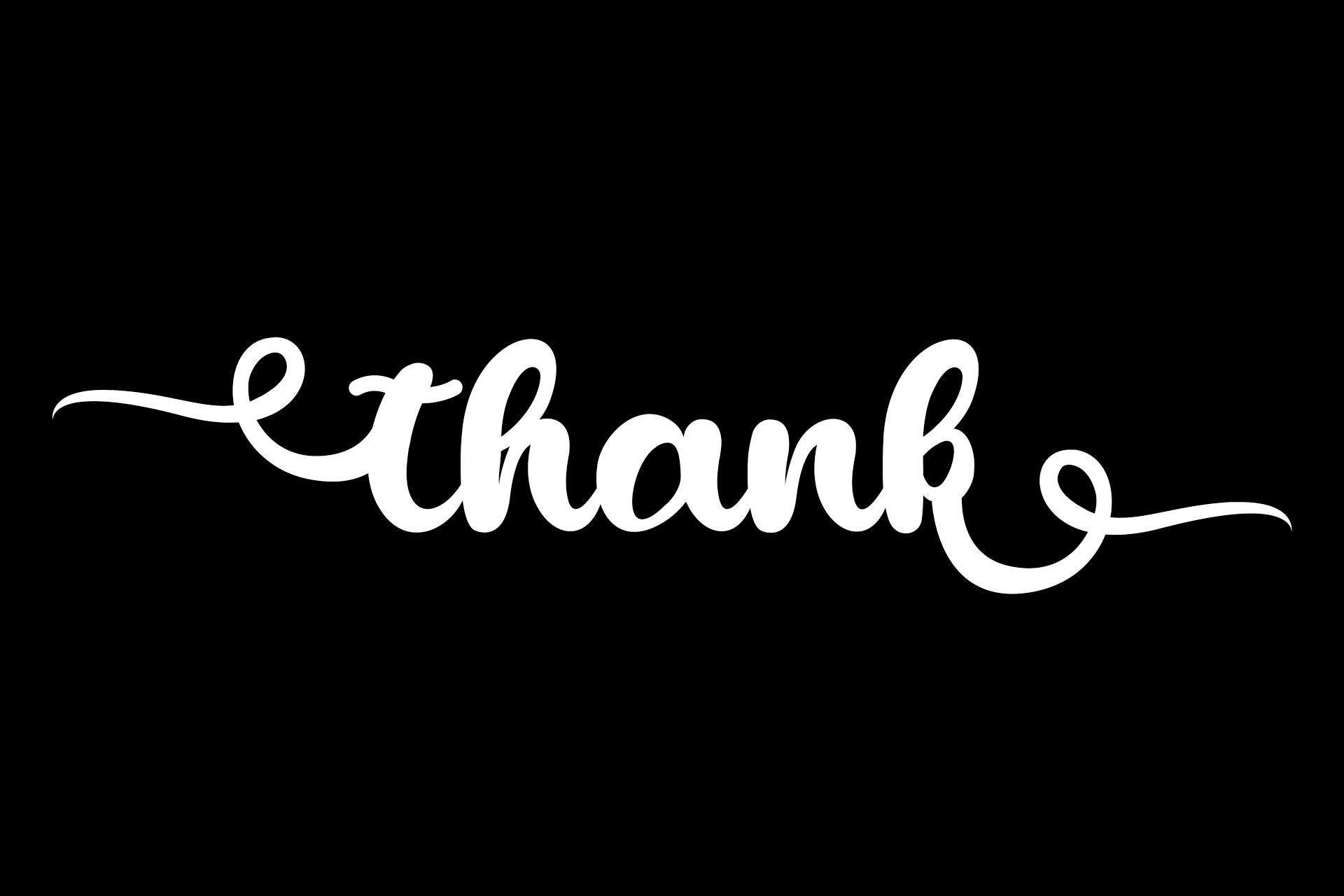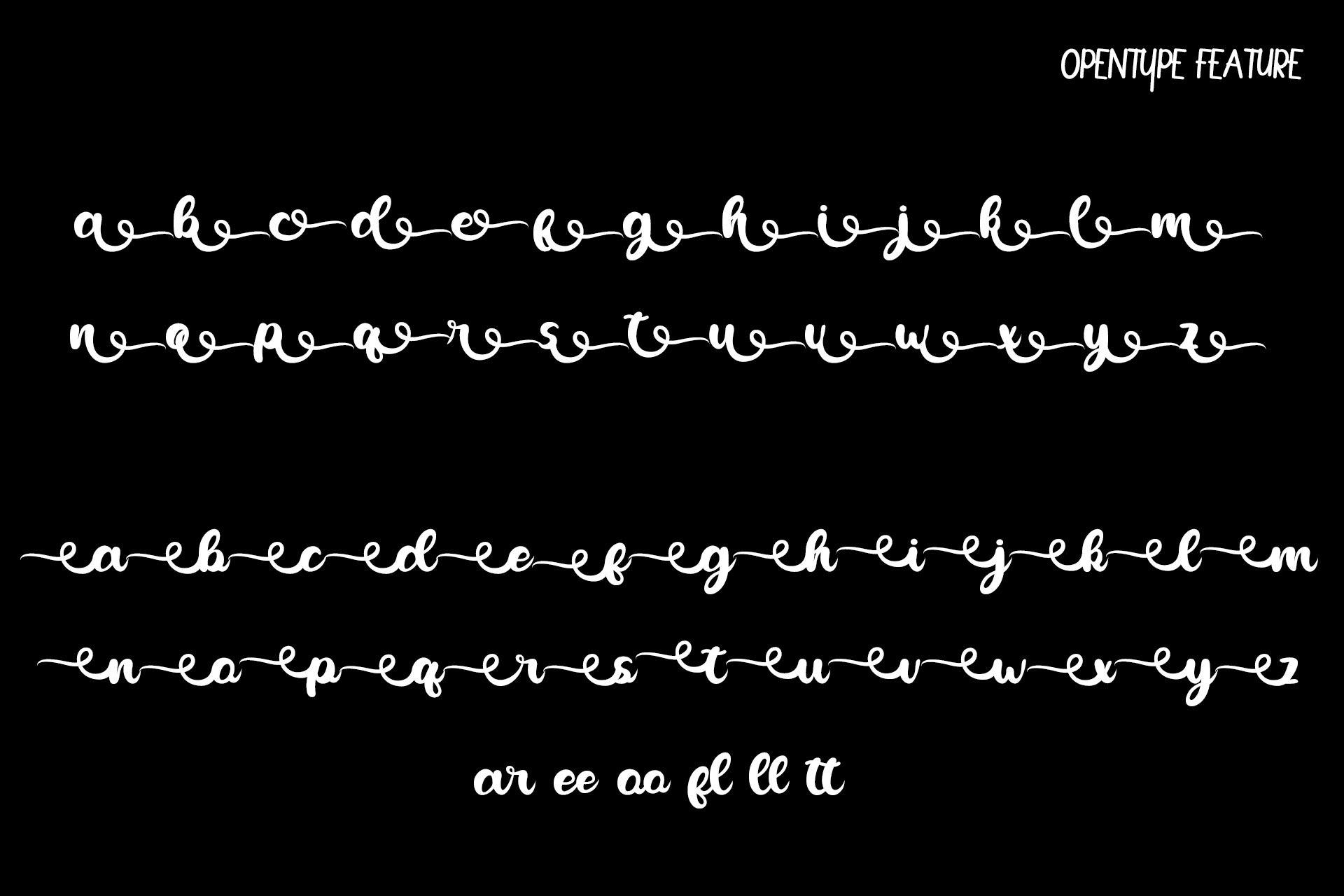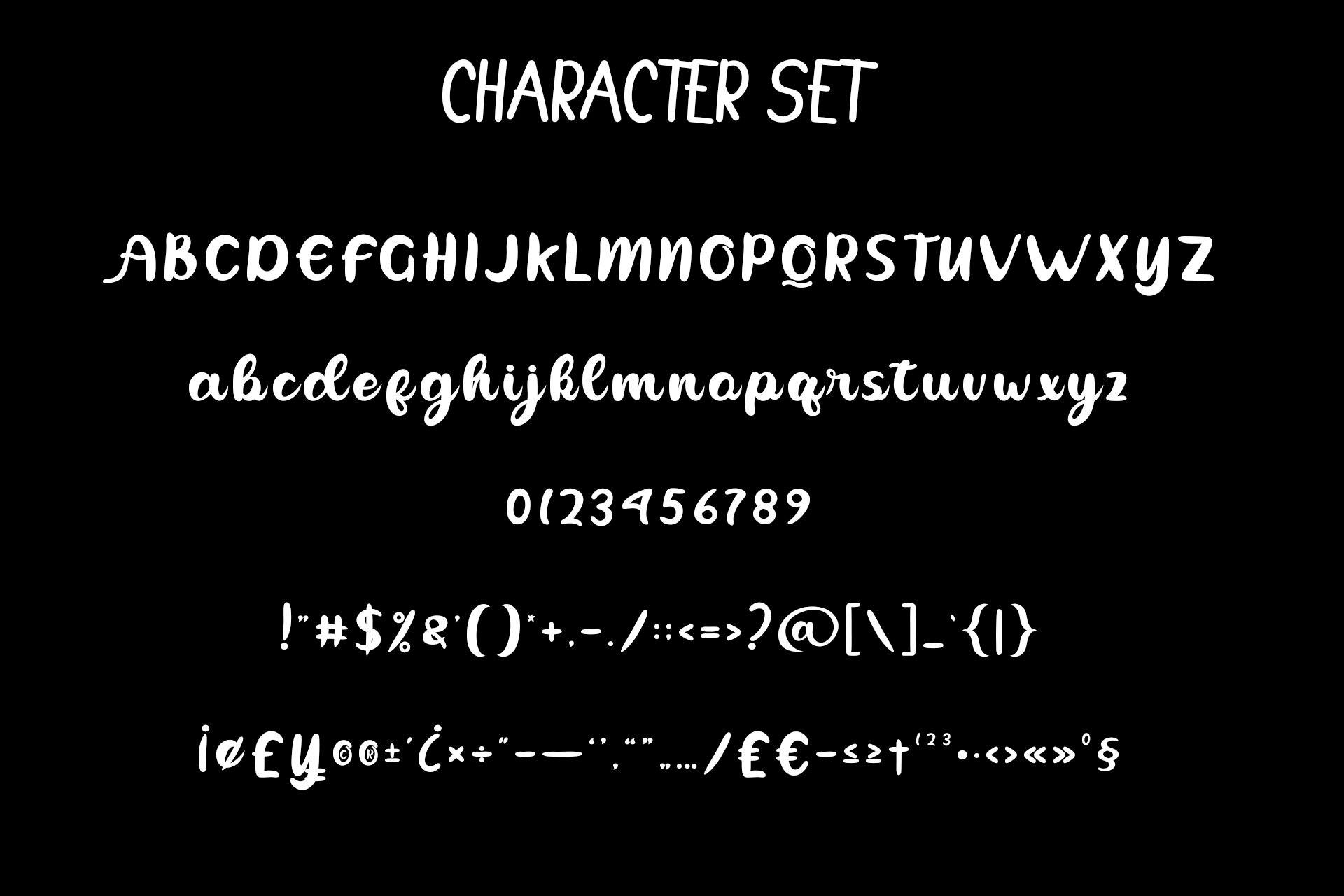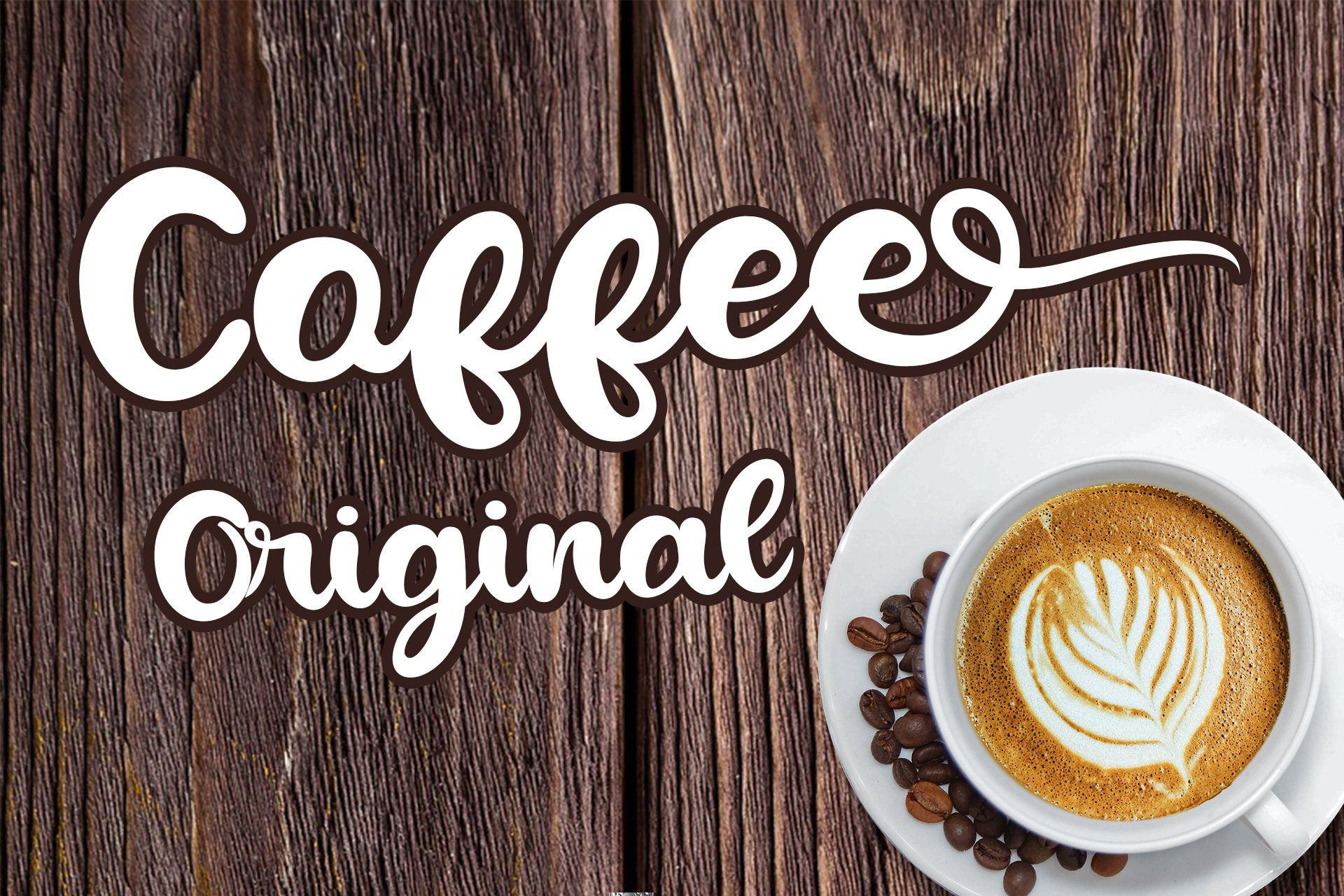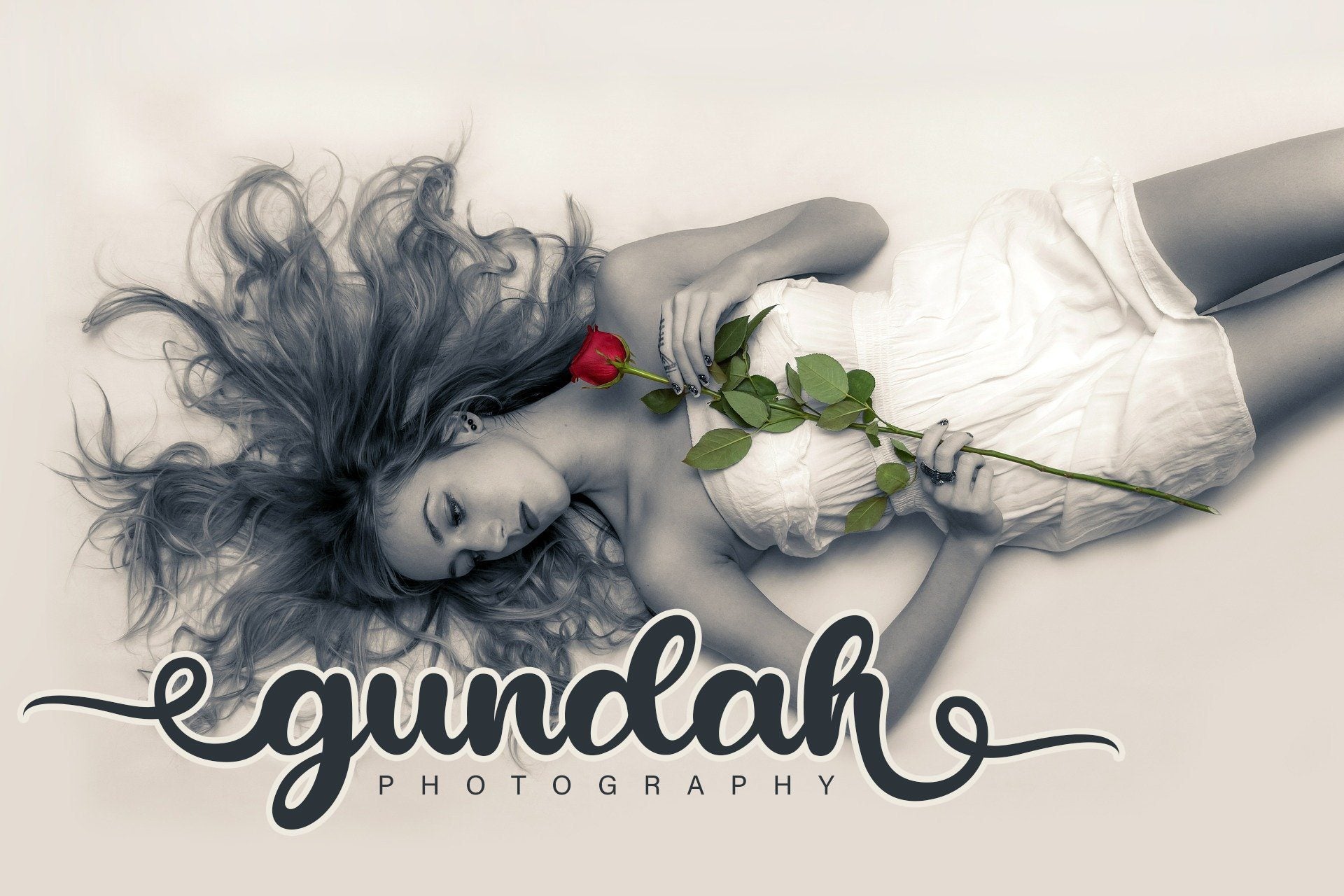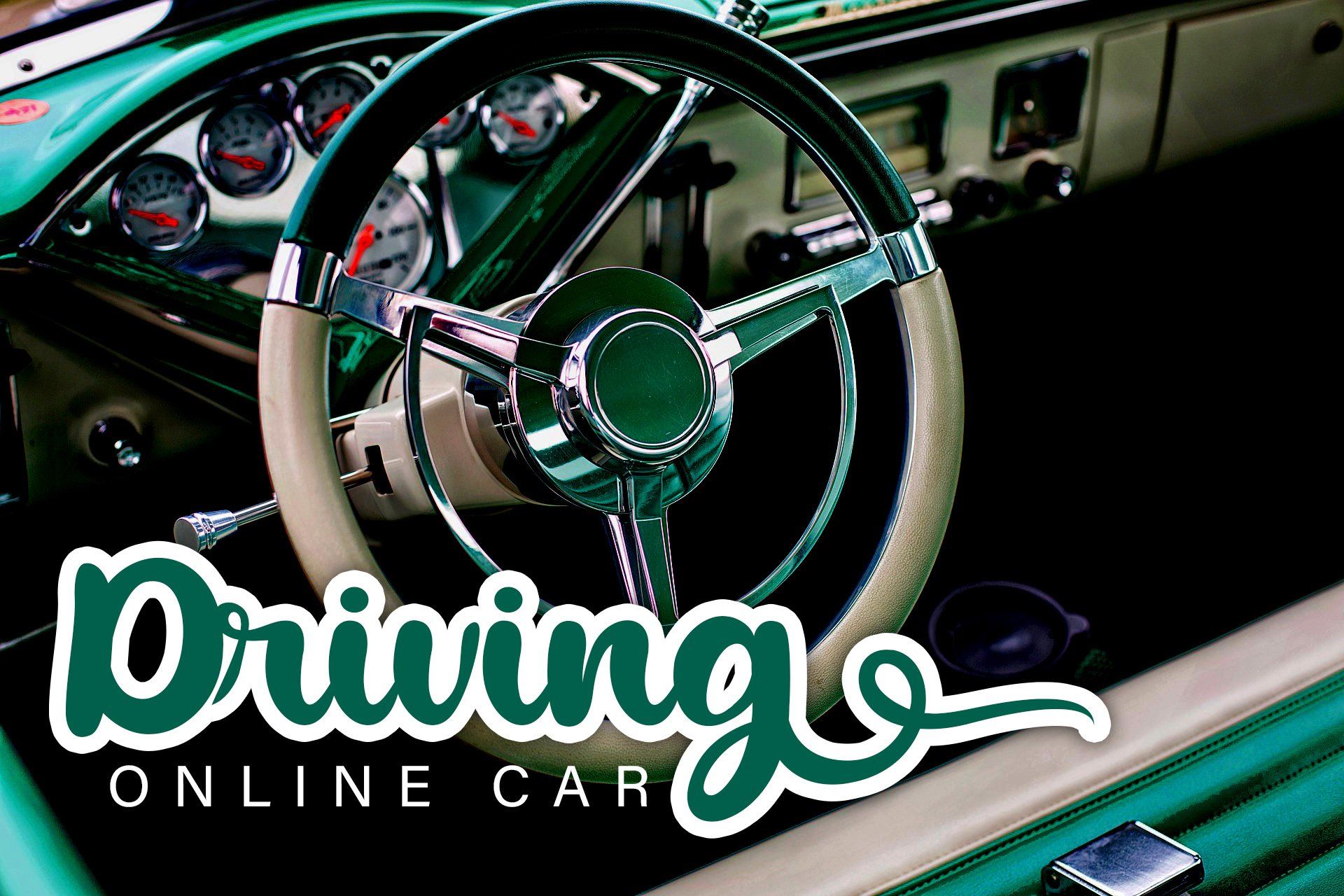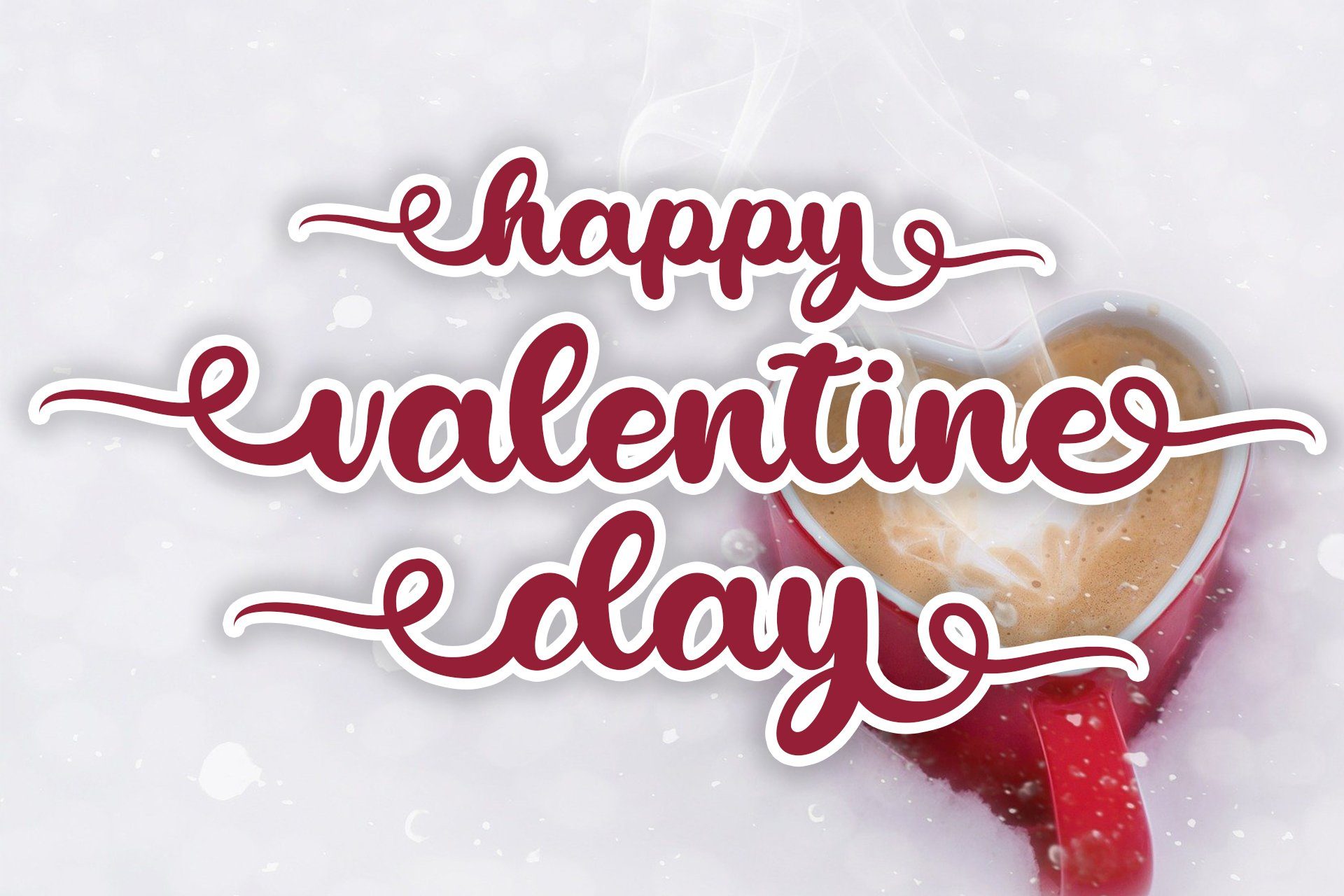
Heyline Beauty Bold Script
About Heyline Beauty Bold Script
Heyline is a beautiful and beautiful script type script designed with a neat concept, there are also alternative opentype features, even businesses, companies, clothing, and much more **What’s include:**\ Heyline Script Otf\ Heyline Script Ttf\ more than 250+ of glyphs\ Ligature\ Stylistic alternate for lowercase\ Stylistic set for Ending\ PUA Encoded Characters – Fully accessible without additional design software.\ Basic Latin Language Support (AÀÁÂÃÄÅCÇDÐEÈÉÊËIÌÍÎÏÑOØÒÓÔÕÖUÙÜÚÛWYÝŸÆß ) How to access alternate glyphs? you can see it on this link ( http://goo.gl/1vy2fv )